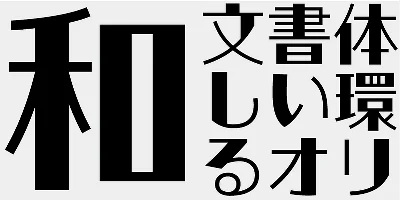
AB Lineboard Bold Font
AB Lineboard Bold Font is a strong and striking sans-serif typeface with a bold, geometric design. Its thick lines and sharp edges make it ideal for headlines, branding, logos, posters, and any project that needs to make a powerful visual impact. AB Lineboard Bold combines modern design elements with high readability, making it perfect for both display text and impactful messaging.